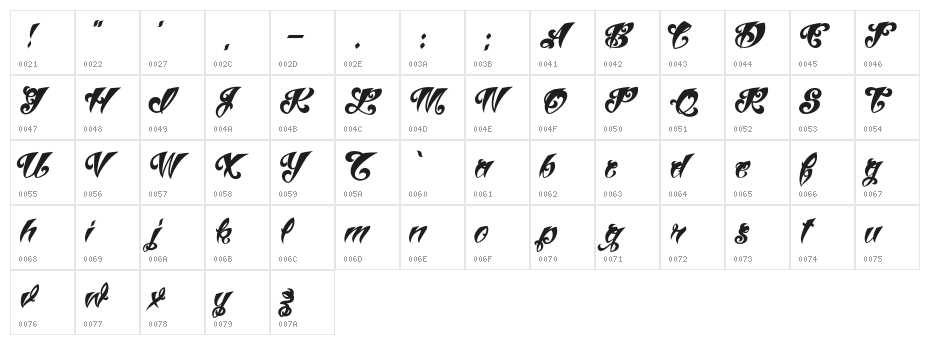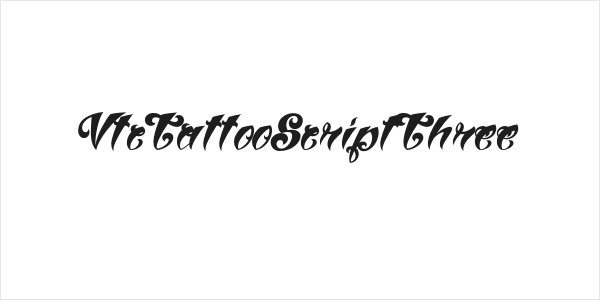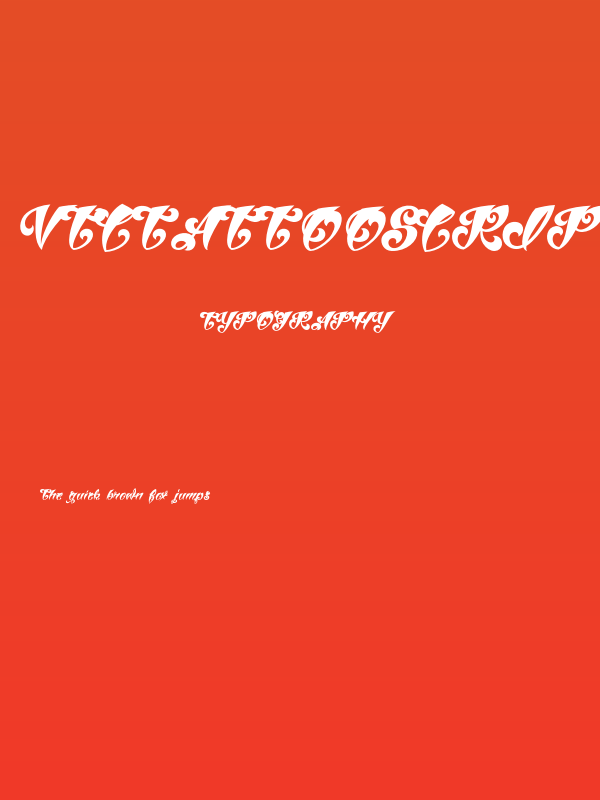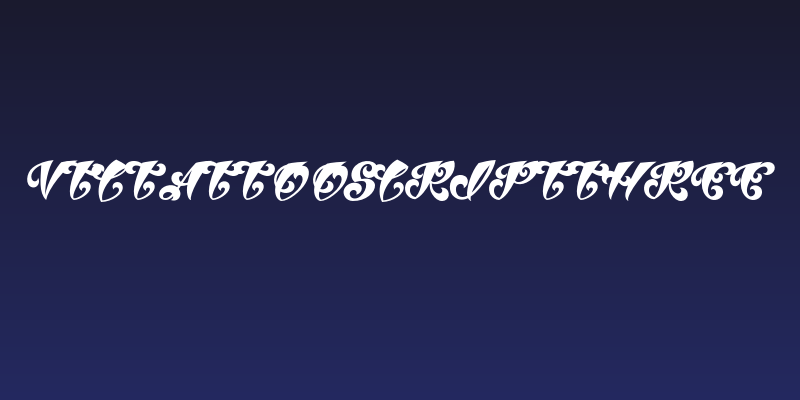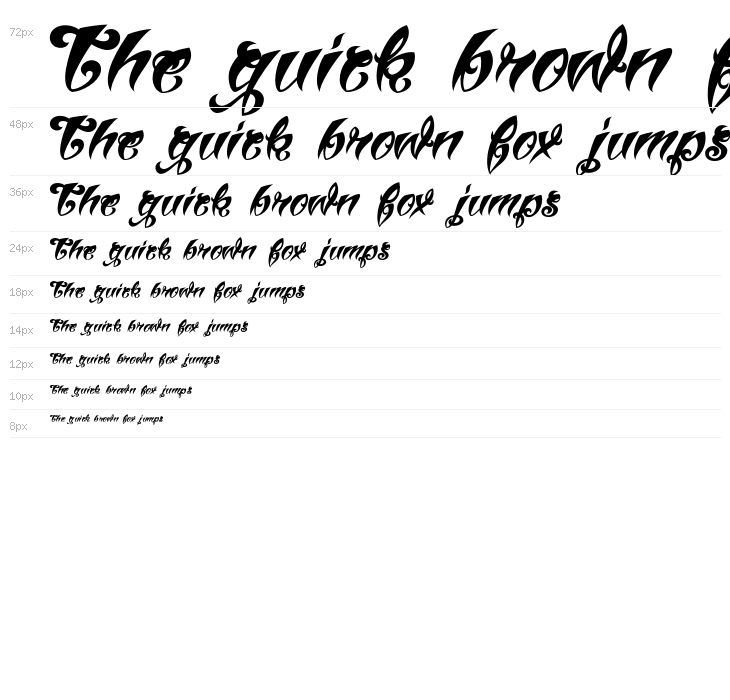
VtcTattooScriptThree Font
VtcTattooScriptThree Description
This font features an intricate and bold script style, characterized by its ornate and flowing letterforms. Each character is crafted with elaborate swirls and curves, giving it a distinct tattoo-like appearance. The uppercase letters are particularly decorative, with exaggerated loops and flourishes that enhance its dramatic aesthetic. The lowercase letters maintain the same level of detail, ensuring consistency throughout the typeface. The numbers and special characters are equally stylized, making this font suitable for artistic and expressive designs.
| Use Case | Logos, Headlines, Artistic projects |
| Proposed Projects | Ideal for tattoo designs, album covers, posters, and branding that requires a bold and artistic touch. |